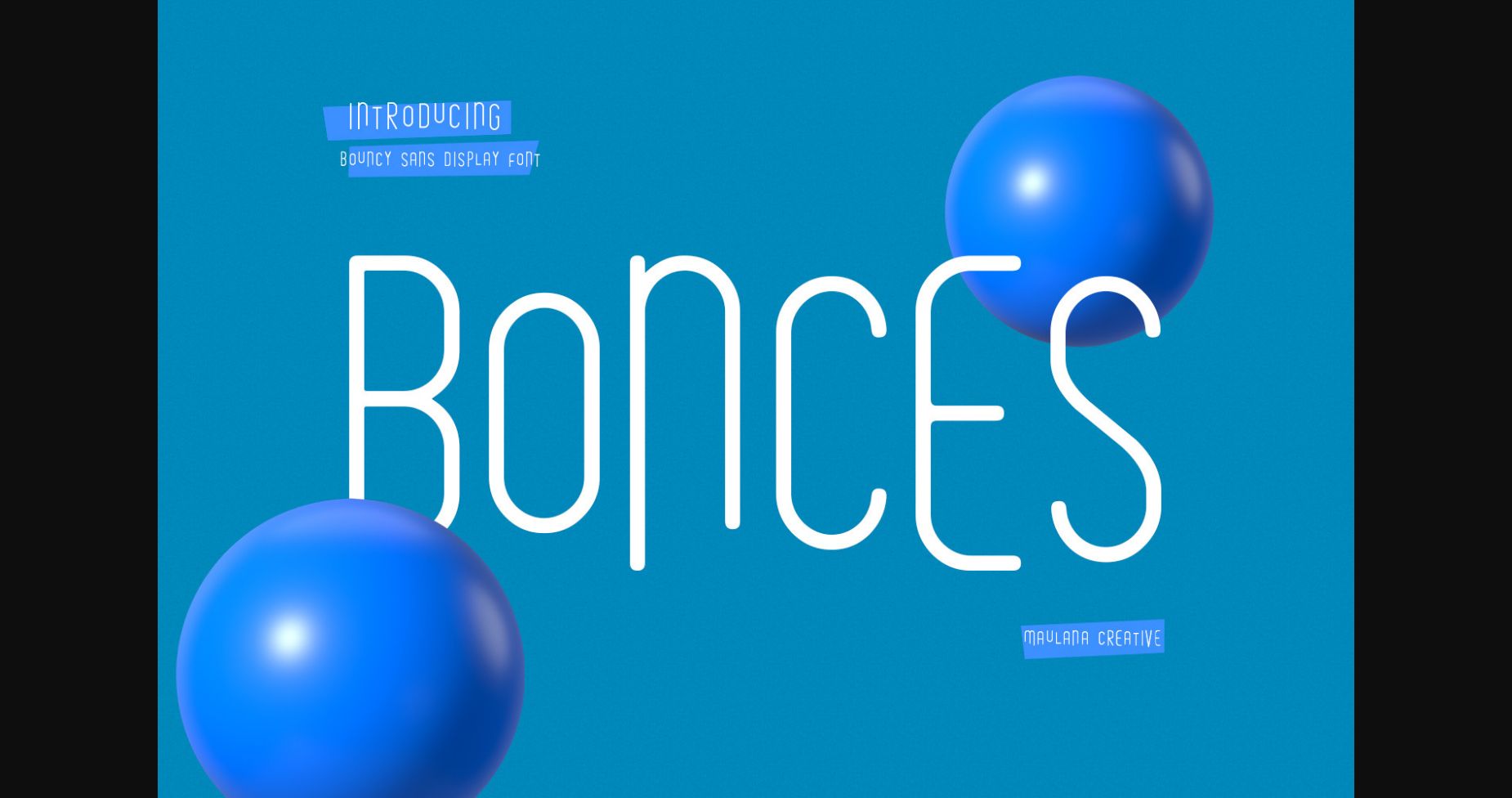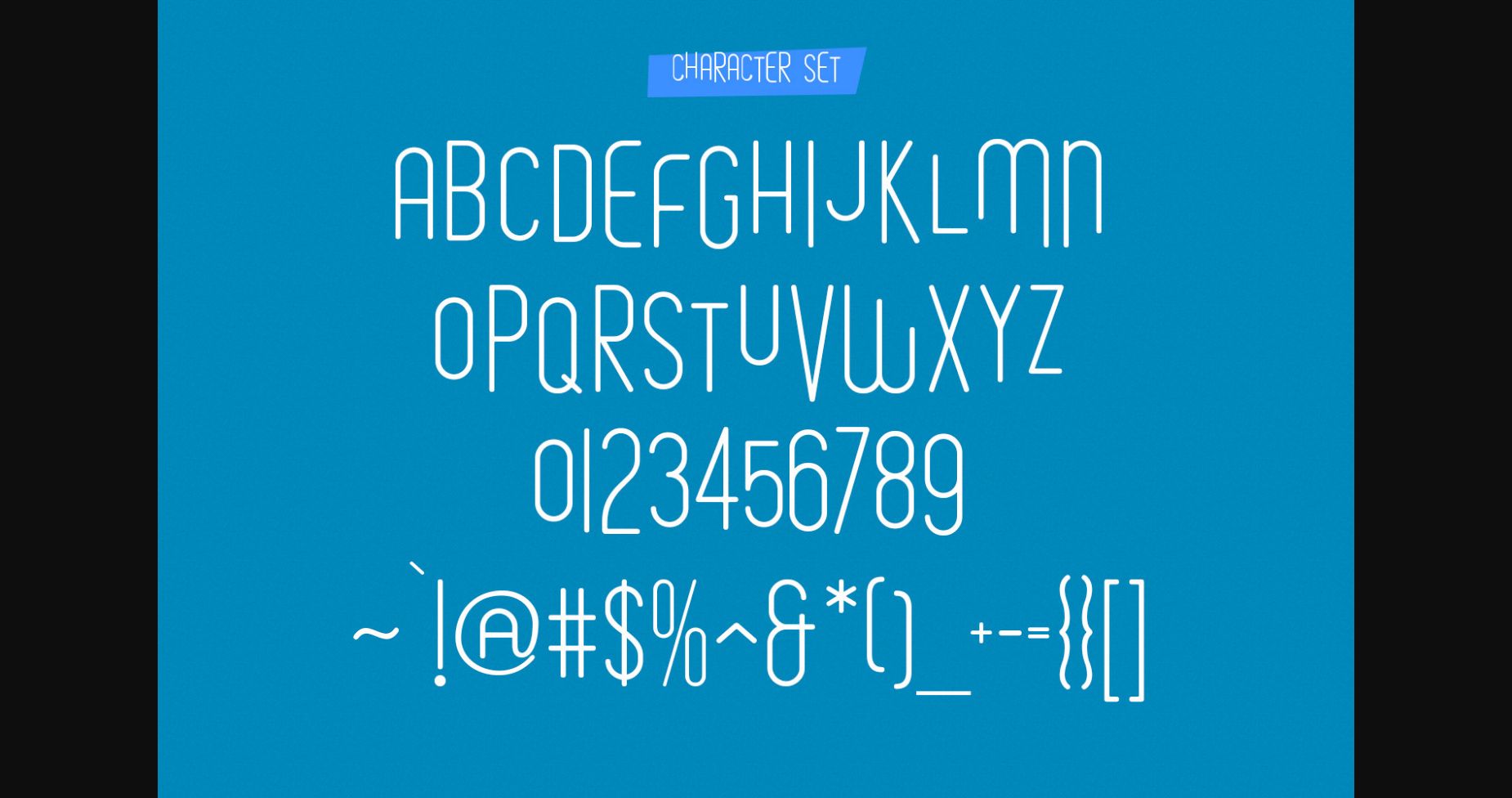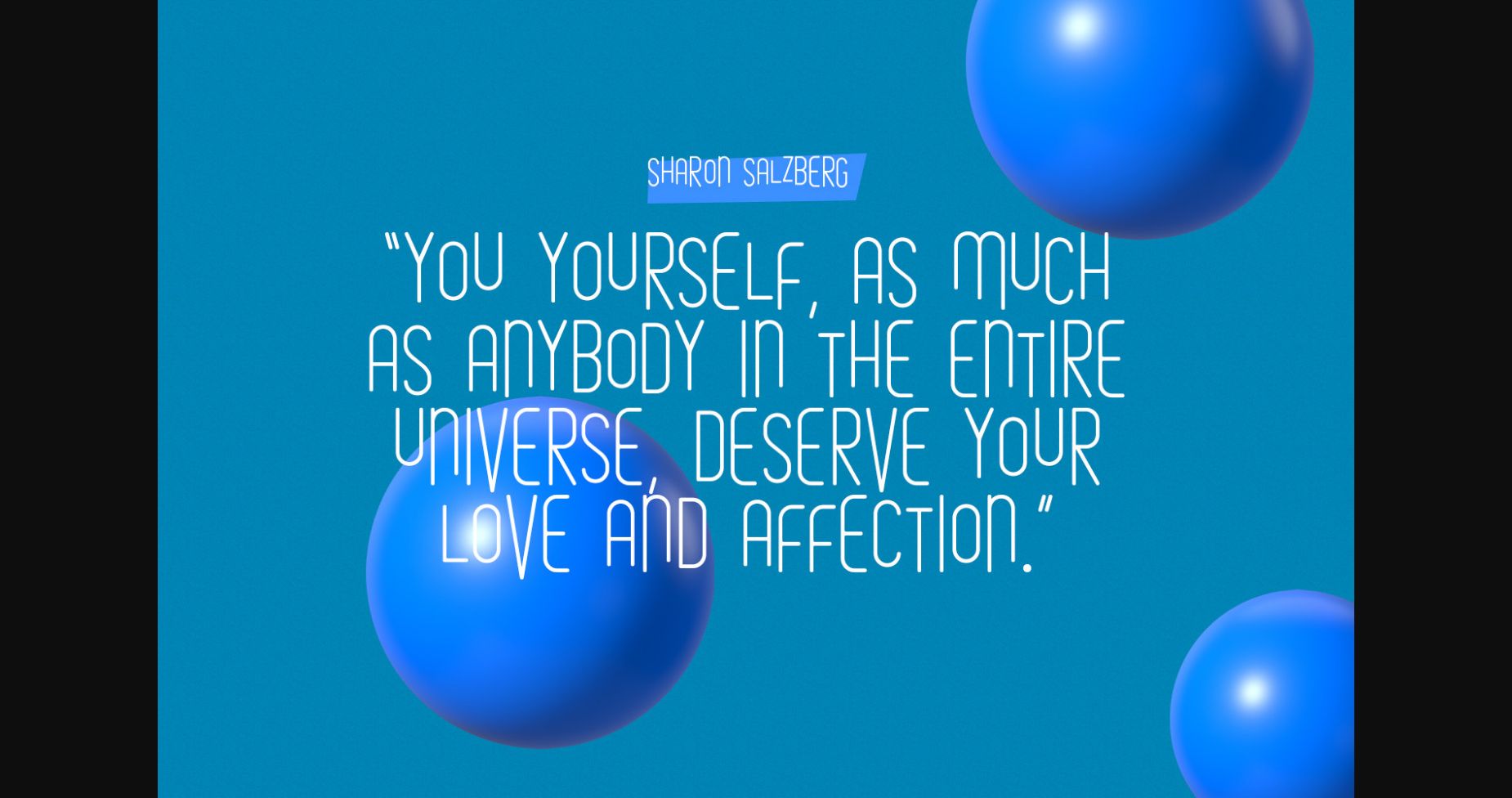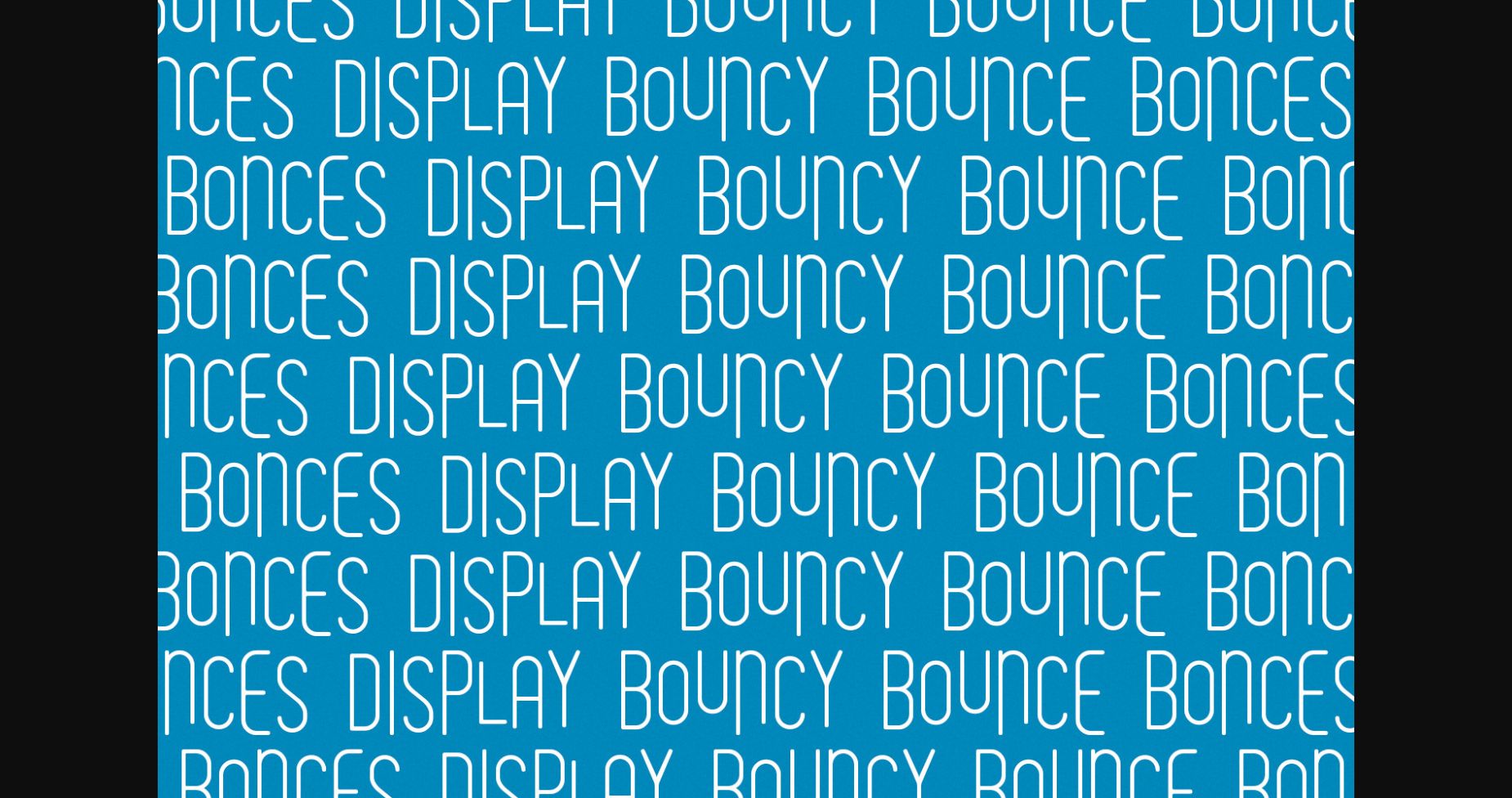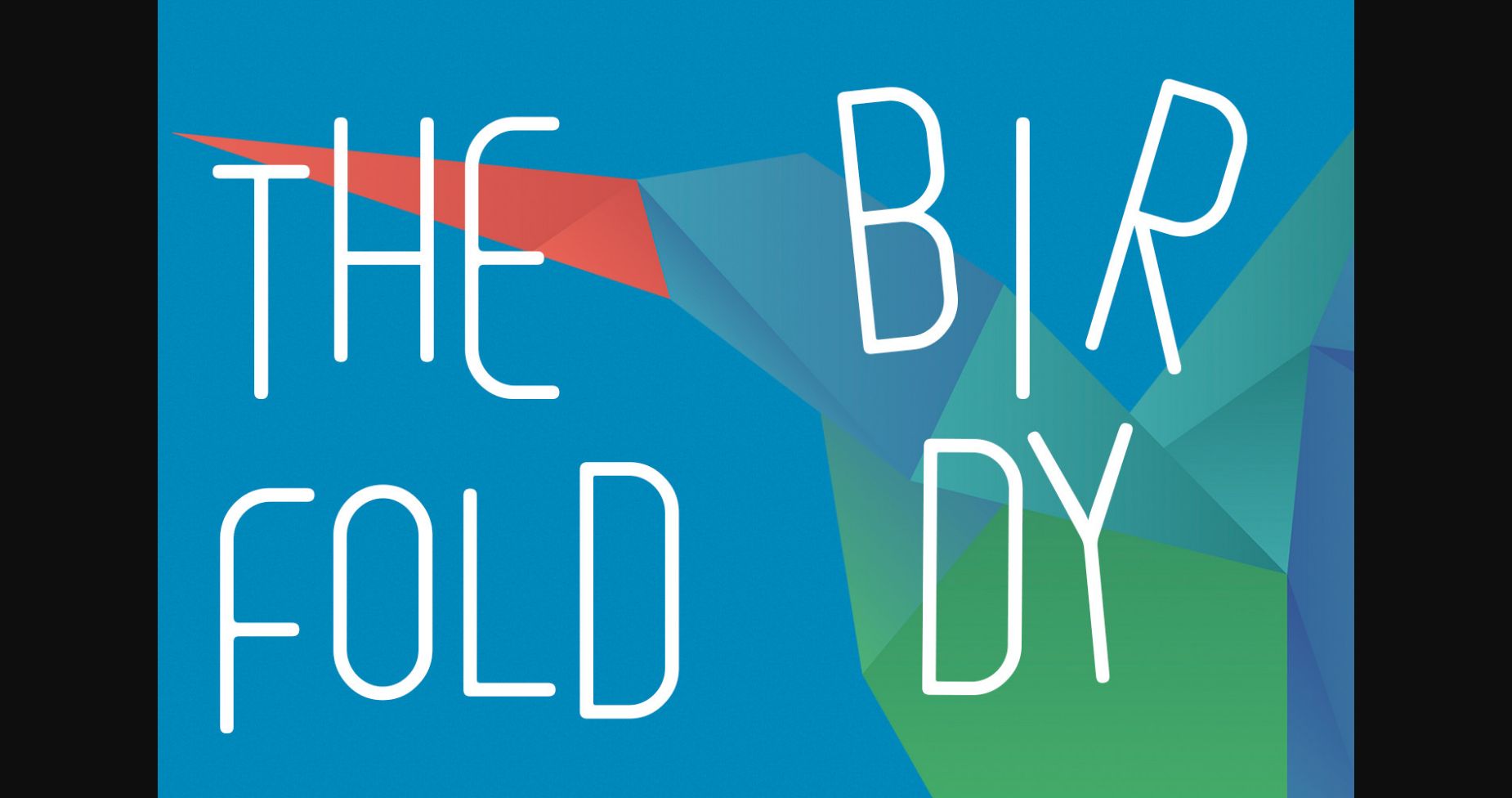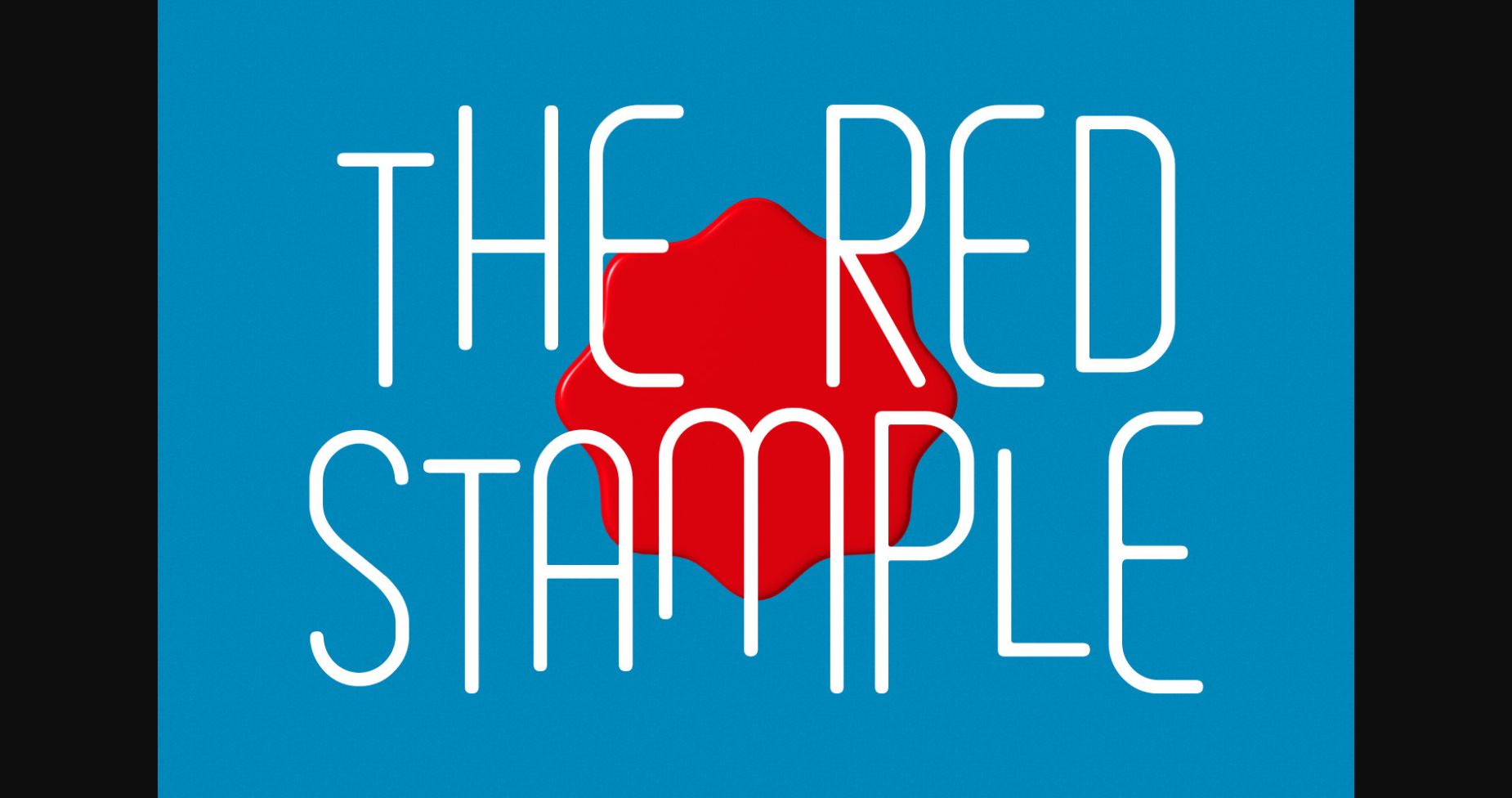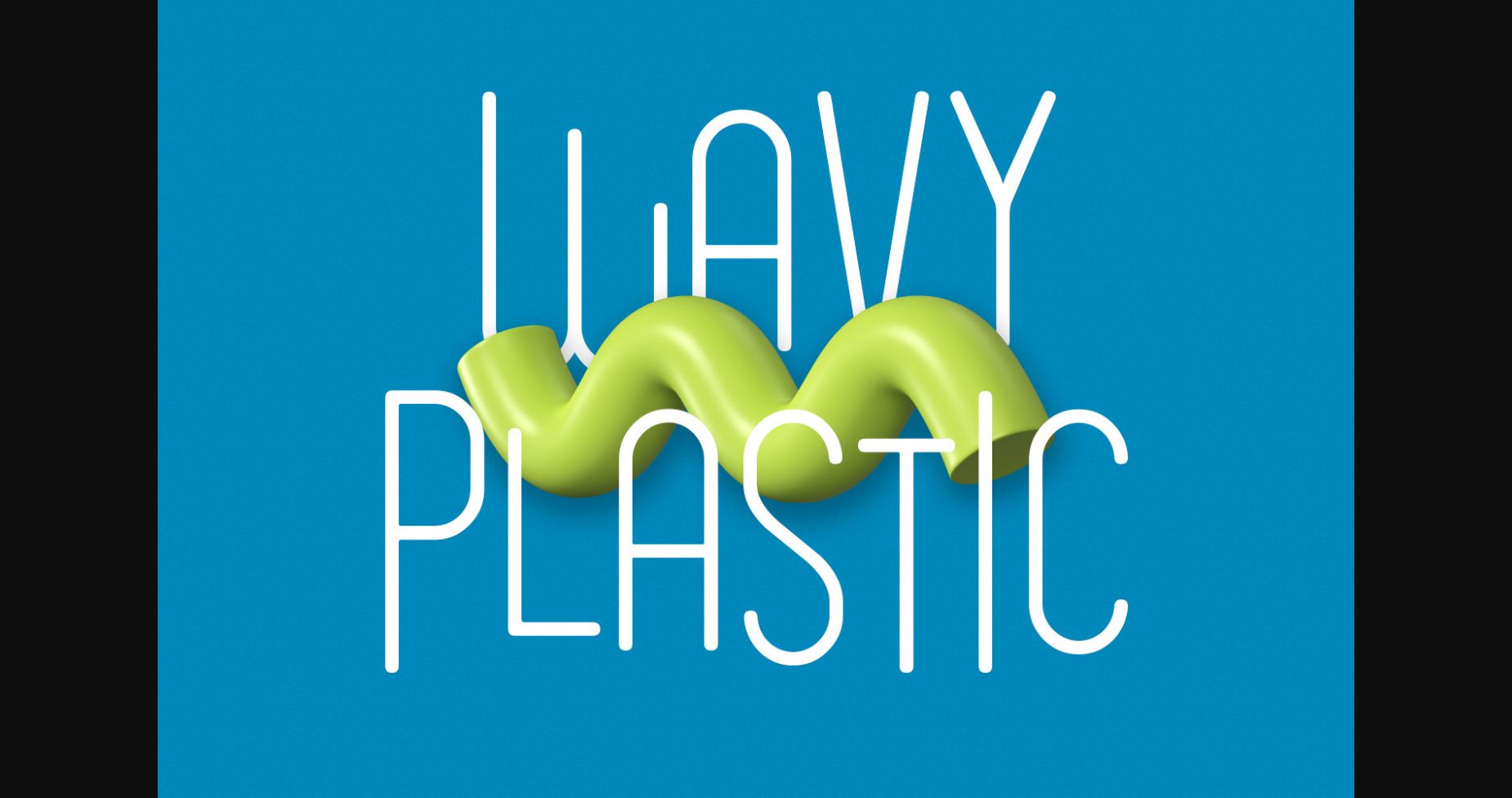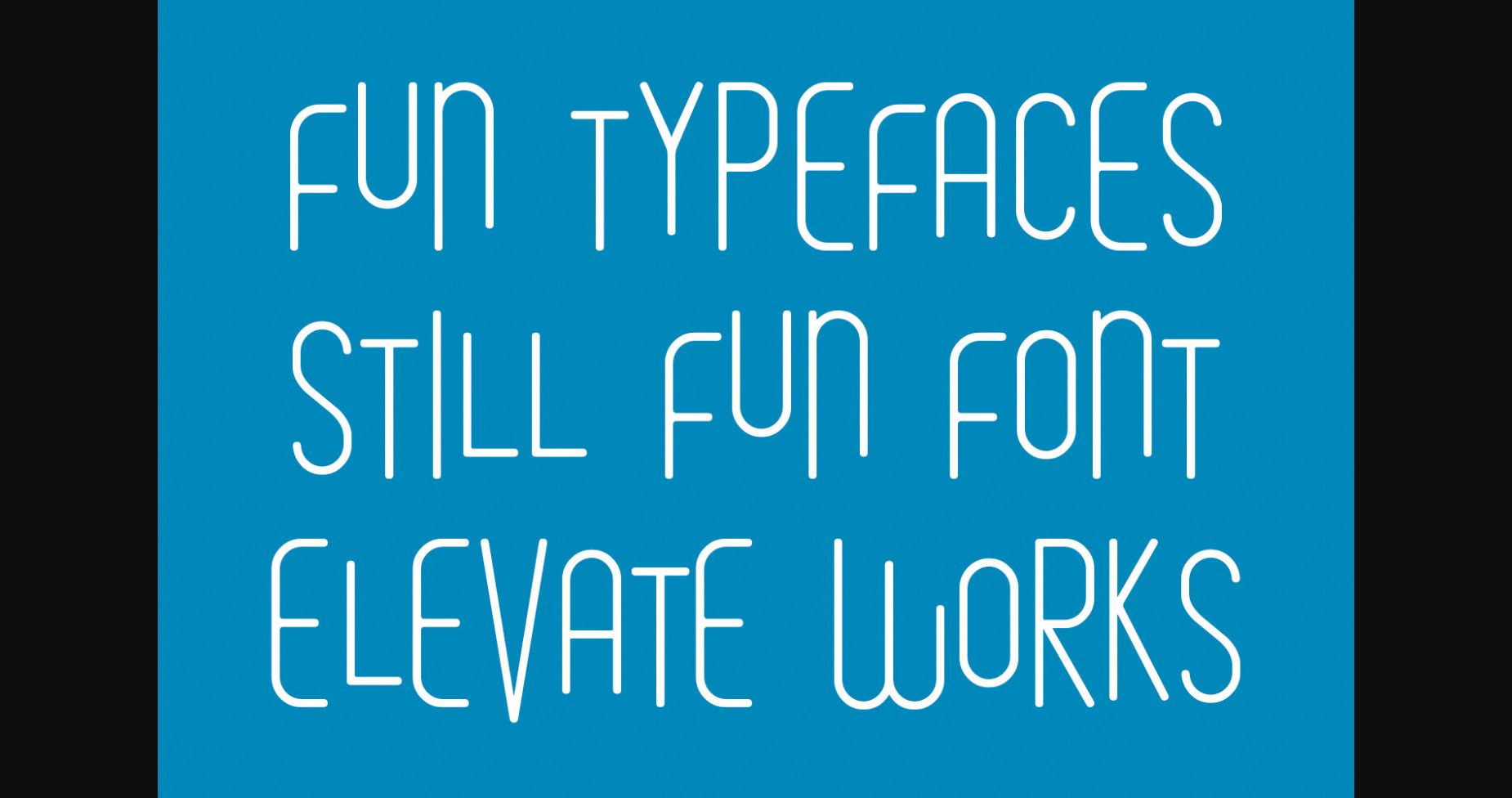
Bonces Bouncy Sans Display Font
About Bonces Bouncy Sans Display Font
Bonces is a modern and unique sans serif font. Perfect for contemporary designs and digital media, it’s versatile enough to be used for headlines, body copy, and branding. Its bold, eye-catching design creates a modern and one-of-a-kind look, adding a touch of originality to any project. Its unique style sets it apart and makes it a must-have for designs that demand a fresh, modern look.